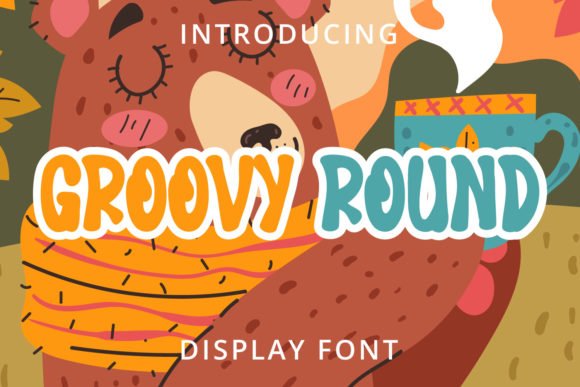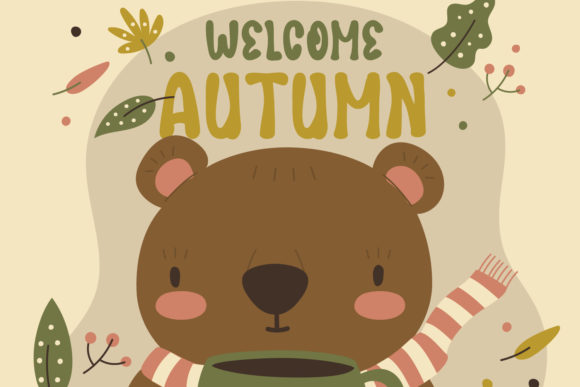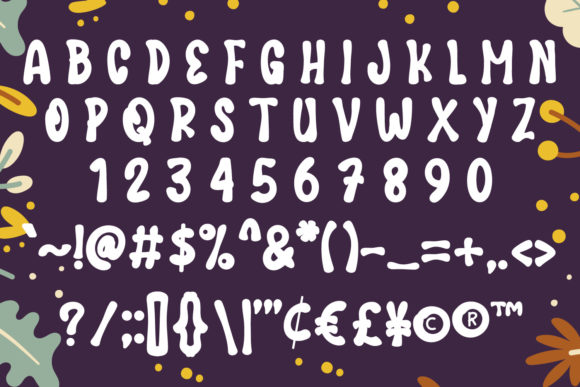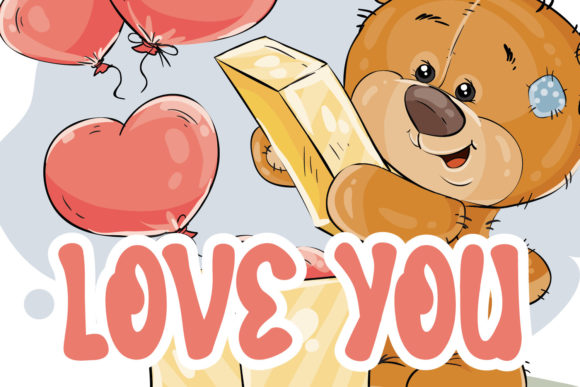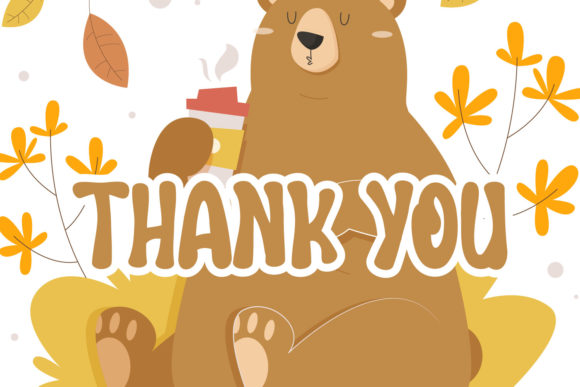
Unlock the Groovy Round Font for Your Next Creative Project
You know that feeling when you’re brainstorming ideas and suddenly a spark of creativity hits you? It’s like the whole world opens up to endless possibilities. For designers, this moment is often the result of having the right tools at their disposal. One such tool is the Groovy Round Font, a delightful display font that adds a playful touch to any project.
Whether you’re working on a cartoon, a children’s game, or simply a design that requires a dash of whimsy, the Groovy Round Font is an excellent choice. Its charming rounded edges and fun personality make it an instant favorite among designers. By incorporating this font into your next project, you’ll be able to tap into its infectious grooviness and create something truly special.
Groovy Round Font Key Features
- Font Style: A fun and playful sans-serif font with rounded edges, perfect for casual and creative projects.
- Resolution: Designed to be scalable, with excellent clarity at resolutions up to 300 DPI, ensuring crisp and clear text even at larger sizes.
- Unique Characteristics: Features a unique, hand-drawn feel with subtle irregularities, giving it a distinctive and eye-catching appearance.
- Language Support: Supports a wide range of languages, including Latin, Cyrillic, and Greek, making it a versatile choice for multilingual projects.
Groovy Round Font Review
I recently had the chance to work with the Groovy Round Font, and here’s my honest take on it.
- The font is indeed very groovy, with a fun and playful vibe that’s perfect for creative projects.
- The rounded edges give it a friendly and approachable feel, making it a great choice for branding and logos.
- The font is highly customizable, with a wide range of weights and styles to choose from.
- The Groovy Round Font is also highly legible, even at small font sizes.
- The font may not be suitable for formal or professional projects, as it can come across as too playful or immature.
- The font’s rounded edges can make it difficult to read at very small font sizes, particularly in low-contrast environments.
- The font’s customization options can be overwhelming, making it difficult to find the perfect combination of styles and weights.
Overall, I think the Groovy Round Font is a great choice for creative projects where you want to convey a fun and playful vibe. However, it may not be the best fit for more formal or professional projects.
Tips for Getting the Most Out of the Groovy Round Font
The Groovy Round Font is perfect for creating playful and eye-catching designs. To get the most out of it, try:
- Using it for titles and headings to add a touch of whimsy.
- Pairing it with bold or italic fonts to create contrast.
- Experimenting with different font sizes and colors to create visual interest.
The Groovy Round Font is ideal for:
- Social media graphics and ads.
- Party invitations and flyers.
- Children’s books and educational materials.
Alternatives to Groovy Round Font
Great Vibes is a beautiful, hand-drawn font that is perfect for creating a fun and playful atmosphere. It’s great for use in advertising, social media, and any project where you want to convey a sense of excitement and energy.
Compared to Groovy Round Font, Great Vibes has a more organic feel and is better suited for projects that require a touch of whimsy. While Groovy Round Font is more polished, Great Vibes has a more handcrafted look that can add character to your design.
Pacifico is a modern, sans-serif font that is perfect for creating a clean and elegant look. It’s great for use in branding, packaging, and any project where you want to convey a sense of sophistication and refinement.
Compared to Groovy Round Font, Pacifico is more minimalist and doesn’t have the same level of flair. However, Pacifico is a great choice for projects where you want to create a sense of calm and serenity, whereas Groovy Round Font is better suited for projects that require a sense of excitement and energy.